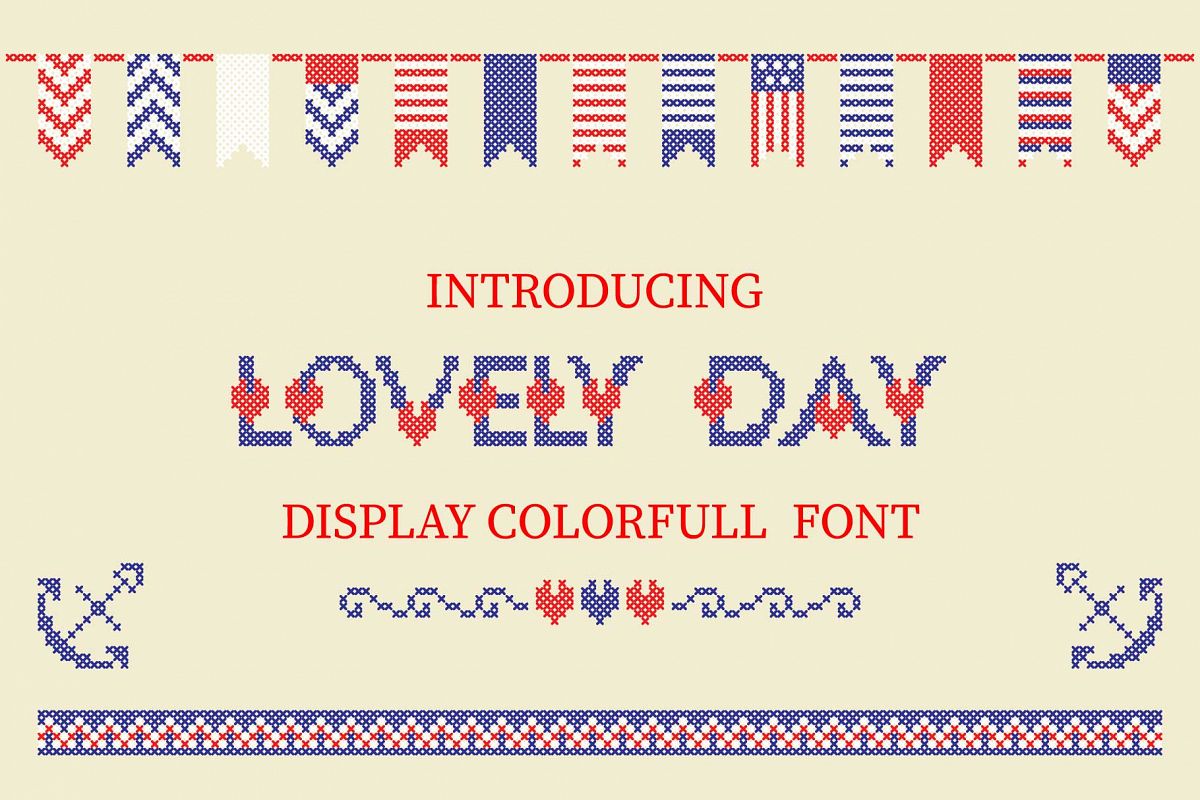
LOVELY-DAY-COLOR-CROSSSTICH OTF-SVG multicolor font
LOVELY-DAY-COLOR-CROSSSTICH
LOVELY-DAY-COLOR-CROSSSTICH OTF-SVG  multicolor font. Modern decorative font. You
can use this font for textile design, quotes, prints on t-shirts, children posters
and love cards and… other.
With
multicolor OTF font, you can type multicolor text.